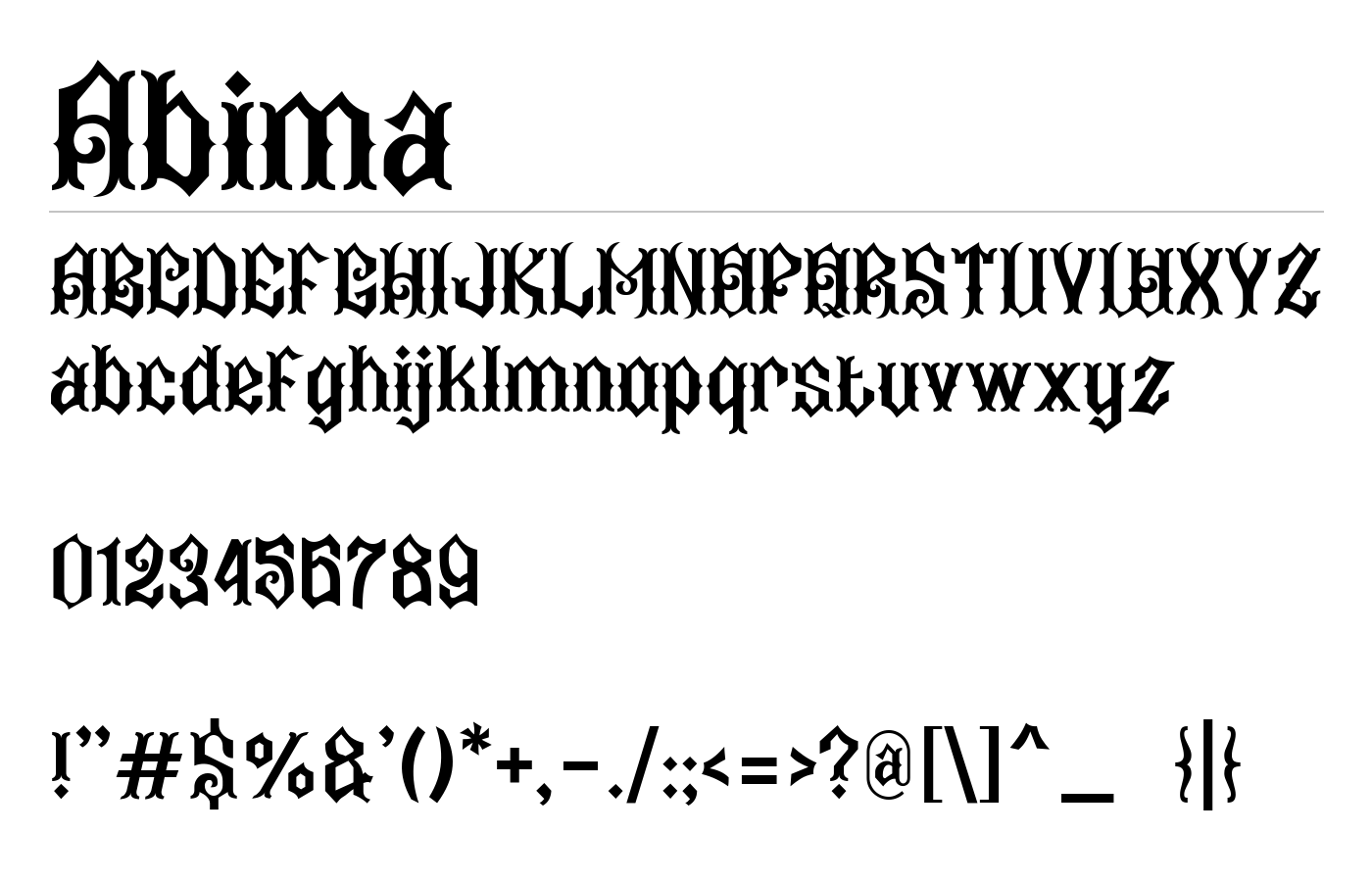
Abima is a bold blackletter serif font with a strong Gothic character, featuring high contrast between thick and thin strokes and sharp, angular details. Its intricate letterforms and condensed style give it a historic, dramatic feel, ideal for vintage or edgy branding, posters, and headlines that need to make a powerful statement. This font works best where a distinctive, old-world vibe is desired, adding a sense of tradition and boldness to any design.